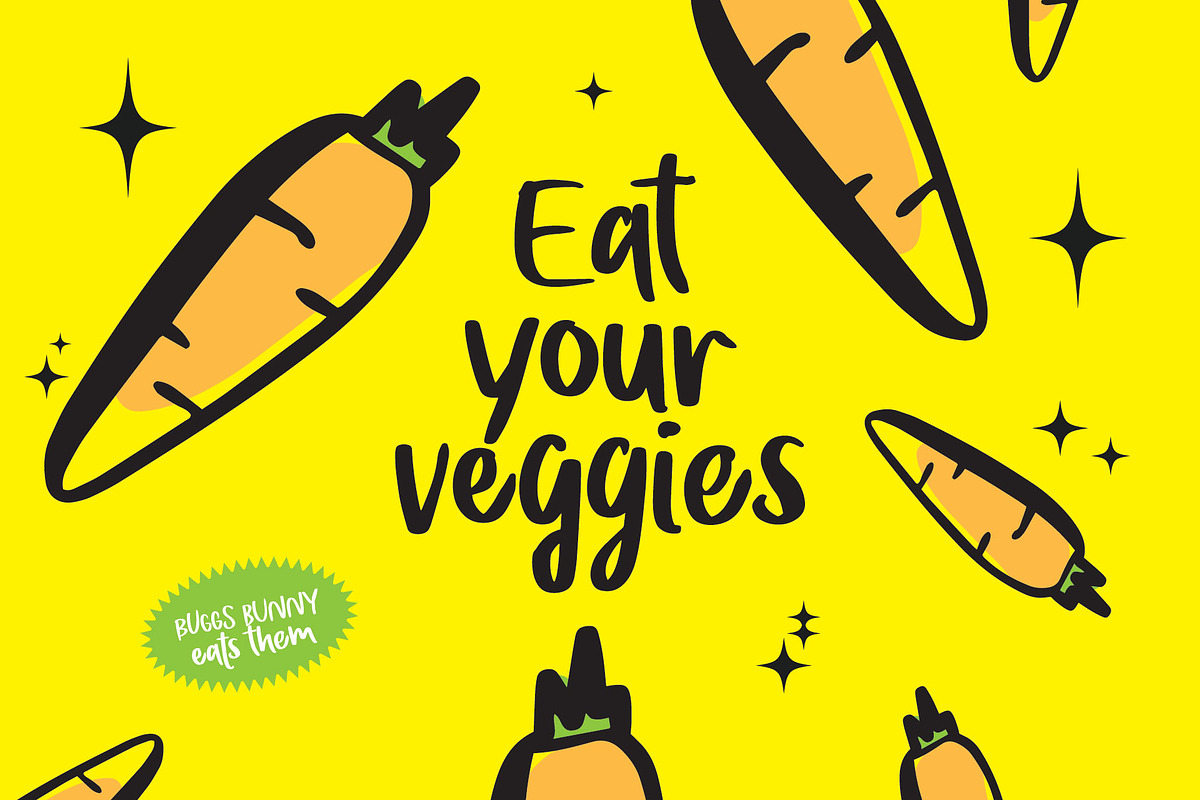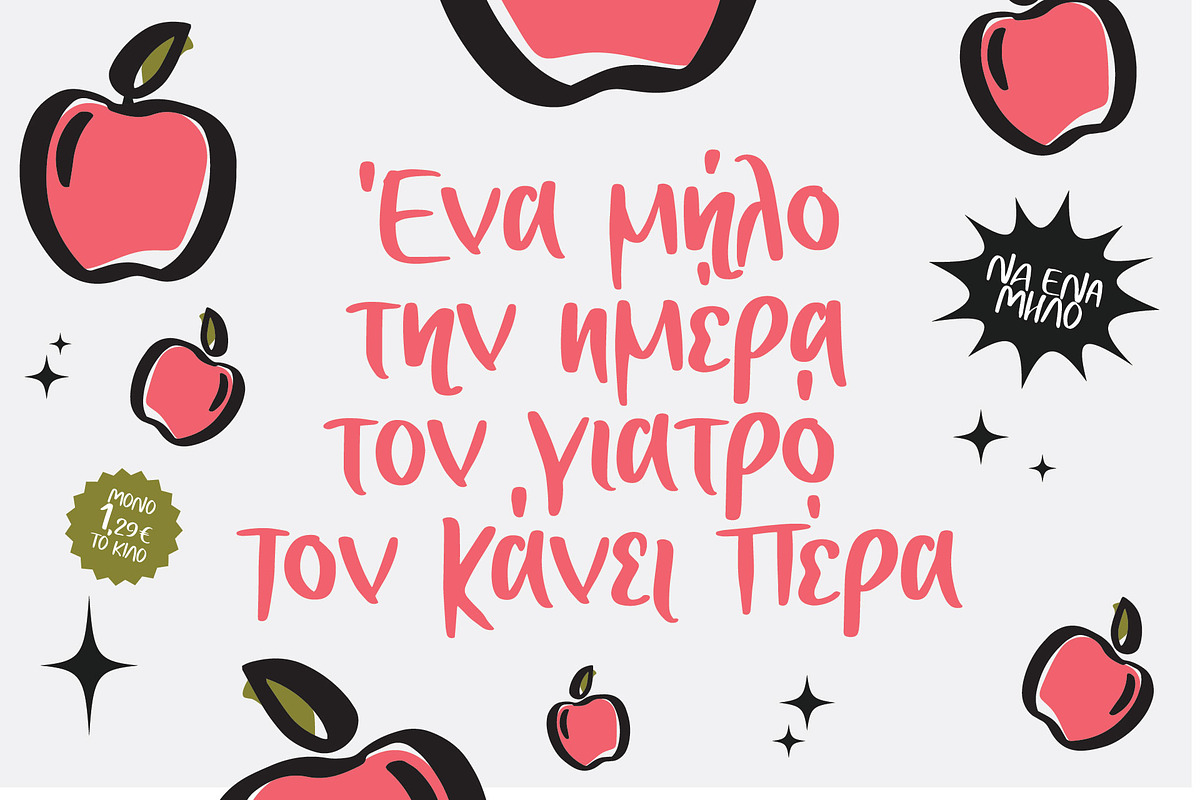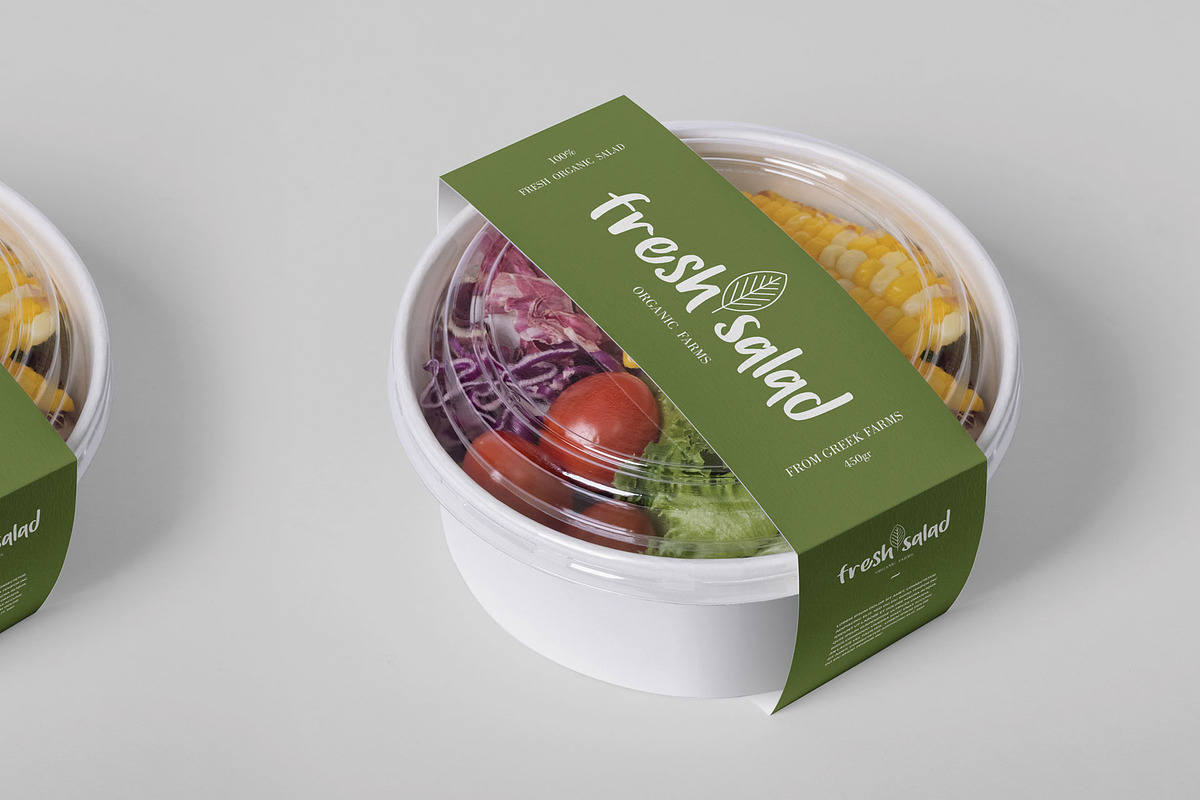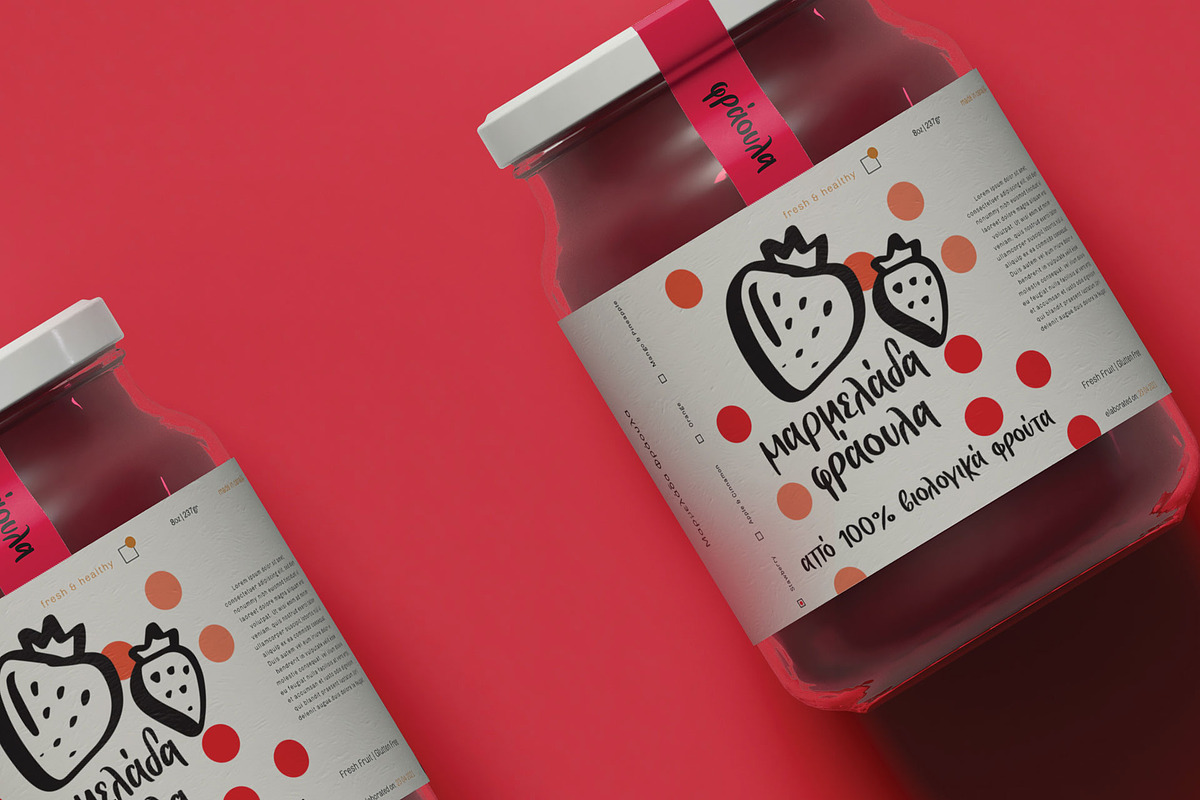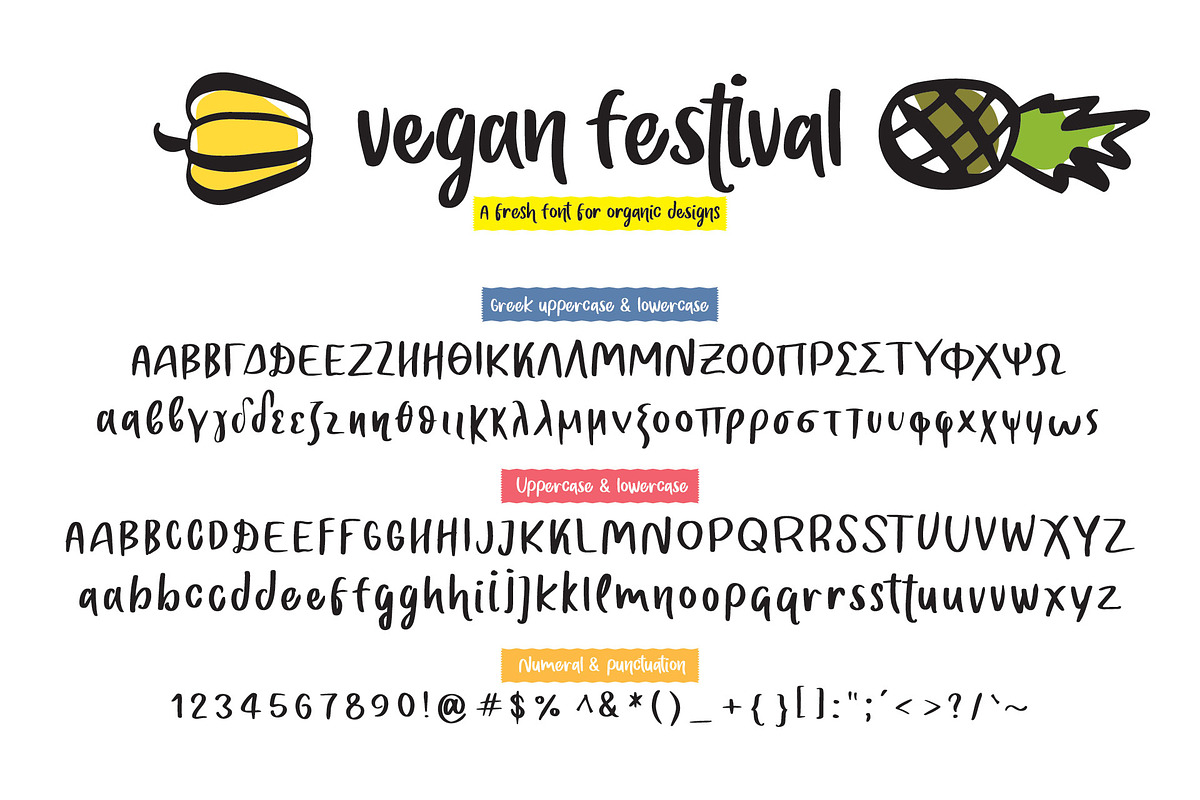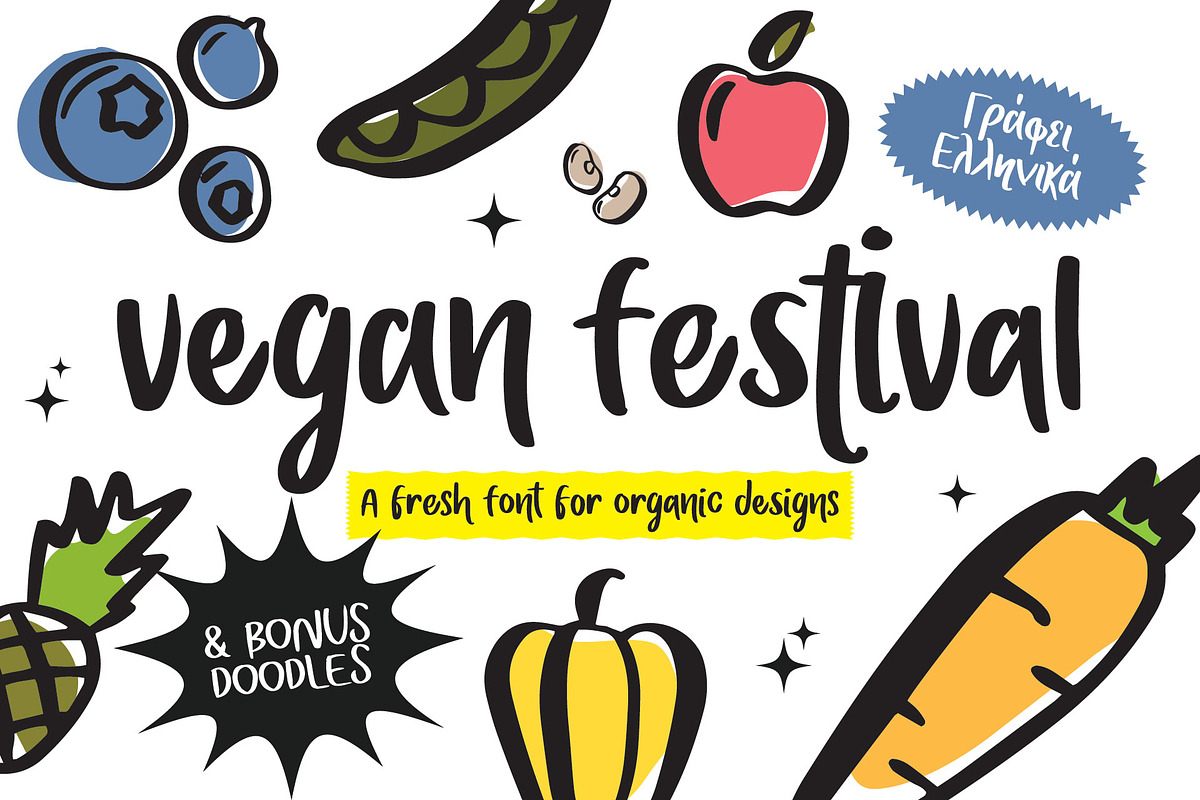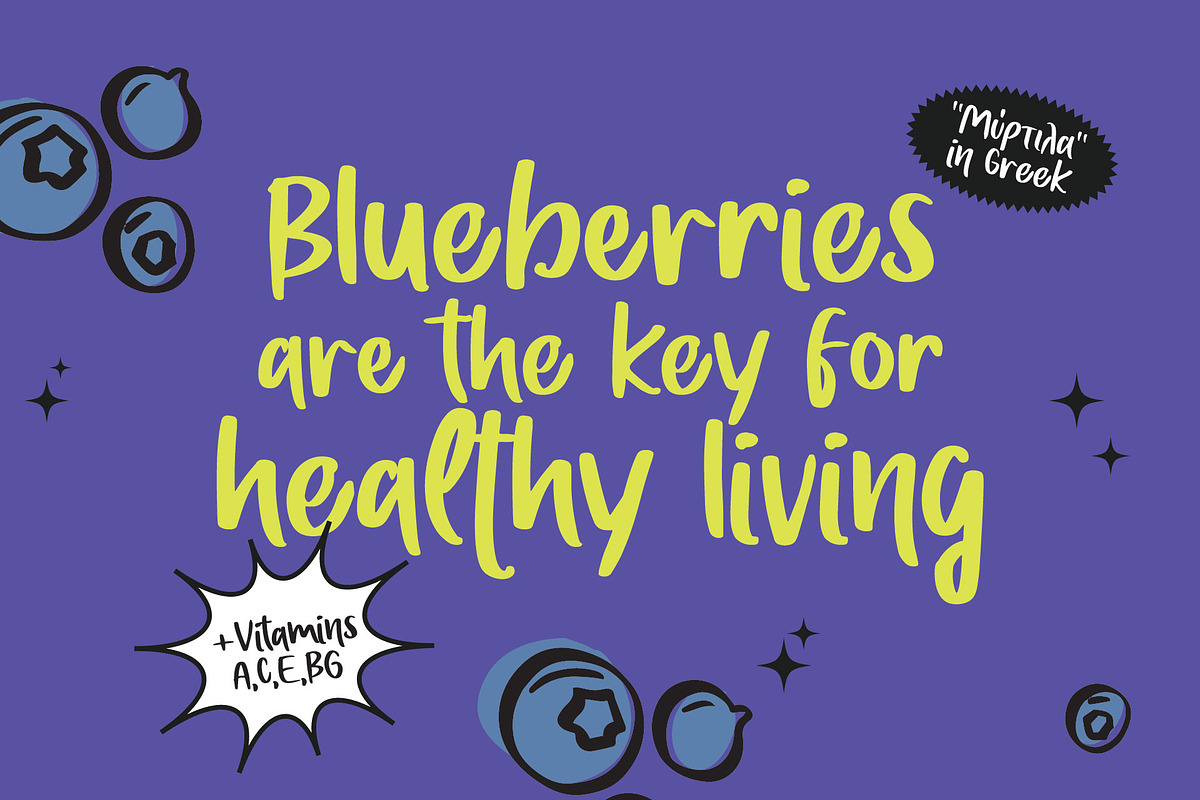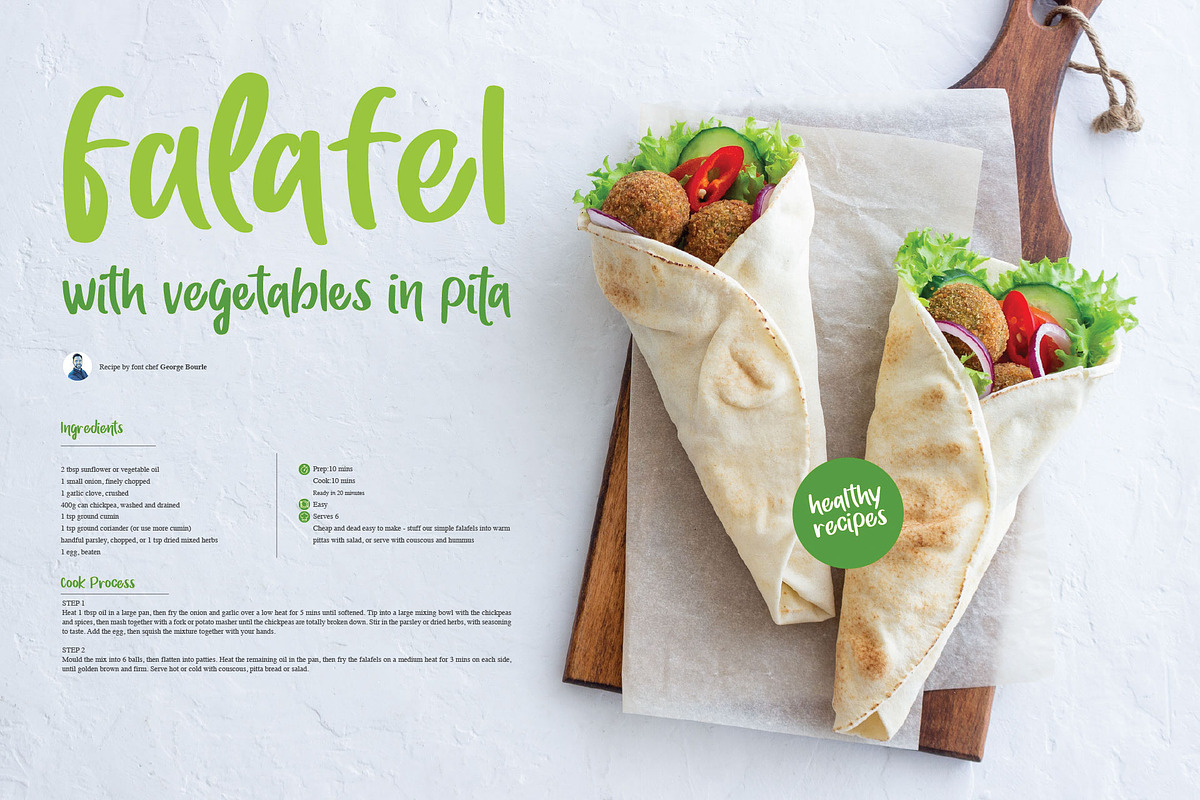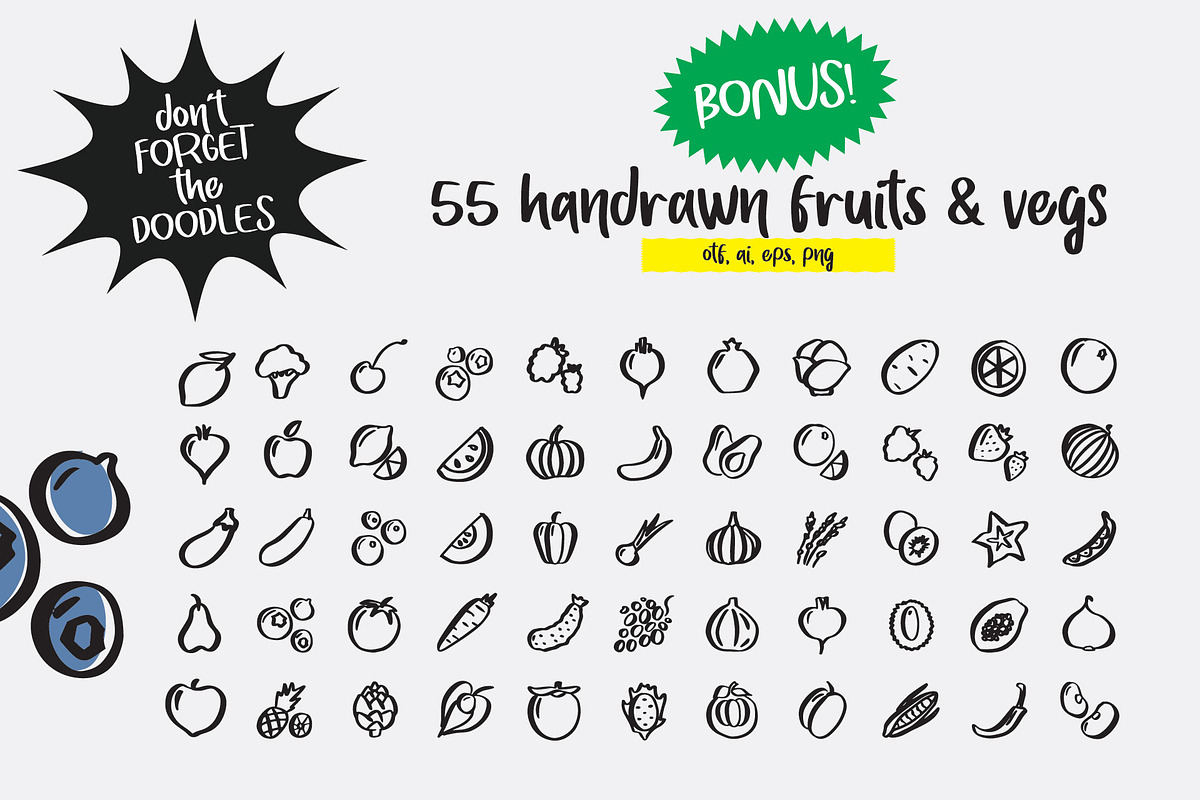
Vegan Festival
Say hello to Vegan Festival! A tasty and organic hand drawn font.
Ideal for big or small scale projects, Vegan Festival is the perfect font for organic designs, packaging, invitations, branding, logo design and so on.
Vegan Festival comes with a powerful extra dingbat font in order to spice up your designs. As a bonus the dings are also available as ai, eps and individual png files.
Also includes built-in OpenType features and a bunch of alternate characters in order to make your design feels more natural.
Last but not least, Vegan Festival font supports Greek alphabet with alternates and divine kerning!